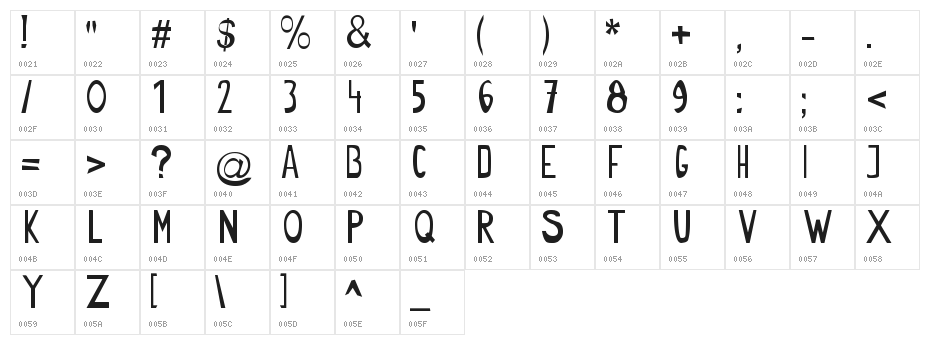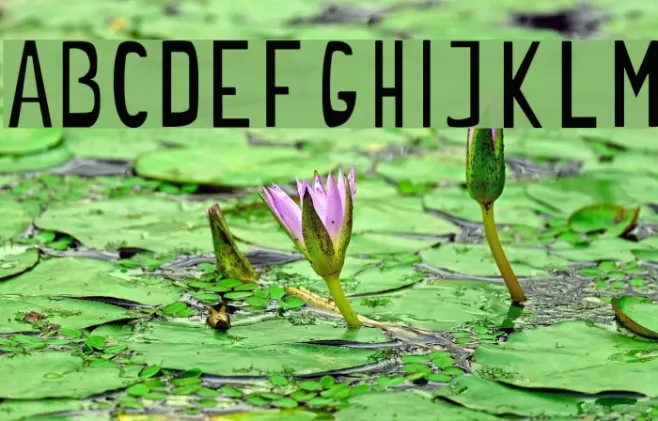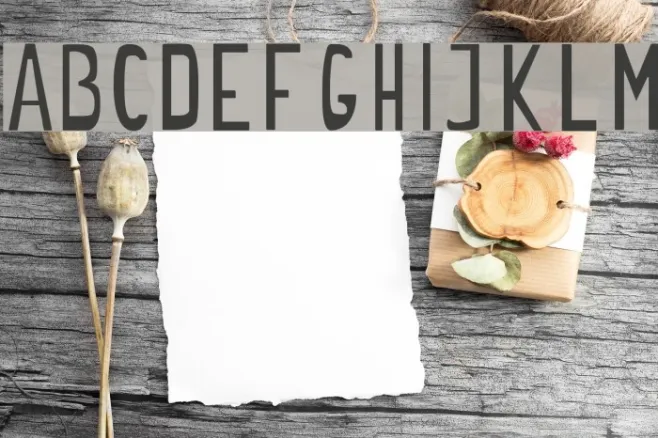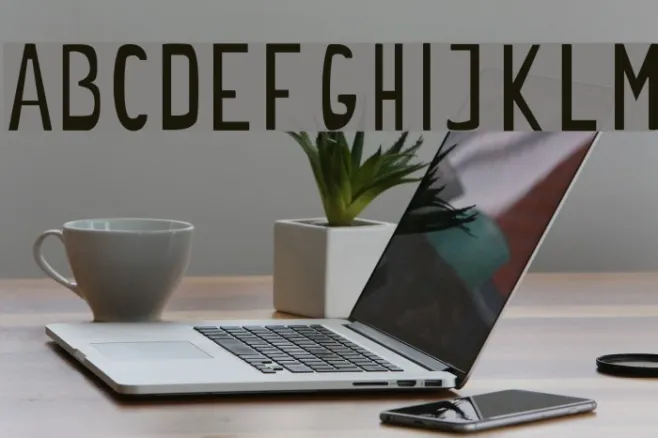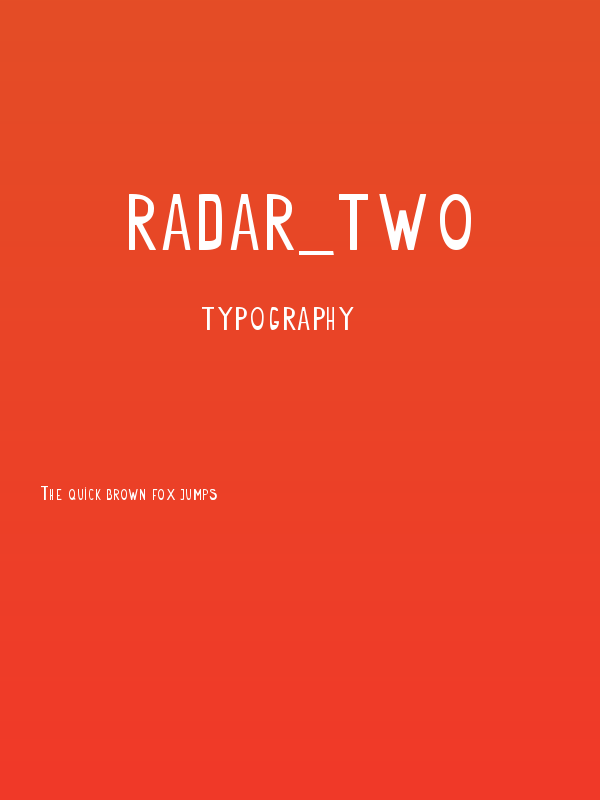
radar_two Font
radar_two Description
This font features a bold and modern design with clean, straight lines and slightly rounded edges, giving it a contemporary and approachable feel. The uppercase letters are tall and narrow, creating a sense of elegance and sophistication. The lowercase letters maintain a consistent style, with a slightly condensed appearance that enhances readability. The numerals are well-proportioned, matching the overall aesthetic of the font. Special characters are designed with the same attention to detail, ensuring they integrate seamlessly with the rest of the typeface. This font's uniform stroke width and lack of serifs contribute to its modern and minimalist look.